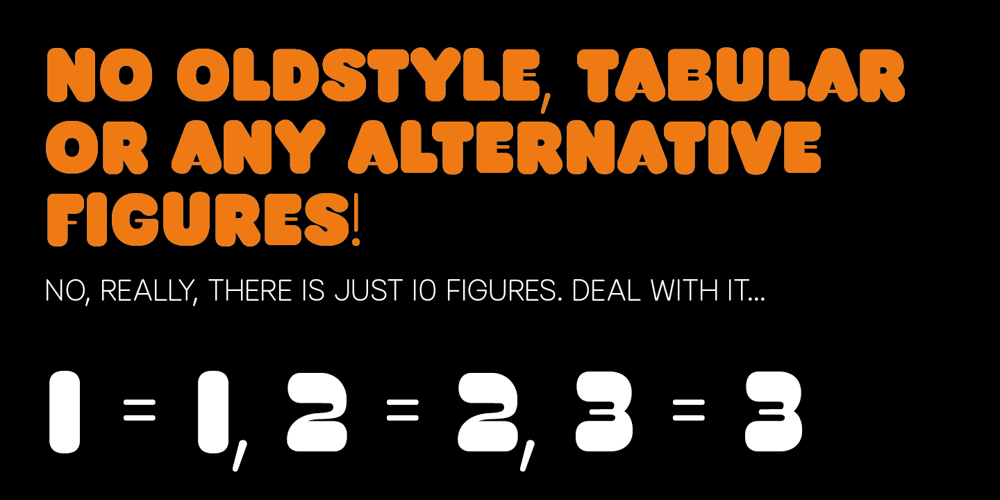
Hela Font Family was designed by Jan Charvát and published by Renegade Fonts. Hela contains 14 styles and family package options. Hela is a high contrast rounded font with interpolation twist. I have a personal saying that fits this font: So long you drive around nice lettering, until you digitize it. Hela comes from lettering of an old Czech textile company called Helana, which does not exist anymore, but the signage is still on the building. The weird thing on this font is that it does not add weight on every stem from Light to Black as usual, but rather adds more and more black stems to the light skeleton. Another nice thing about this font is that it does not include unnecessary glyphs. So there are just 10 figures – you don’t have to think which one is the correct figure kind for you. There is just one kind. No alternates, no italics, no opentype features – even no lowercase. Well, who would use it anyway, it is a display font! Try it yourself with Basic character set for free.